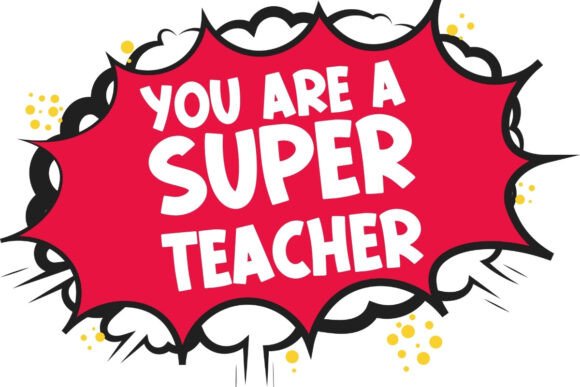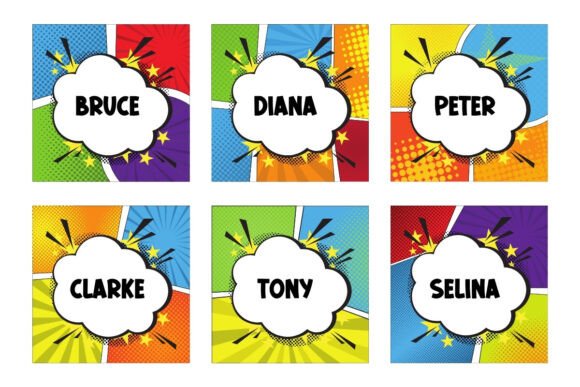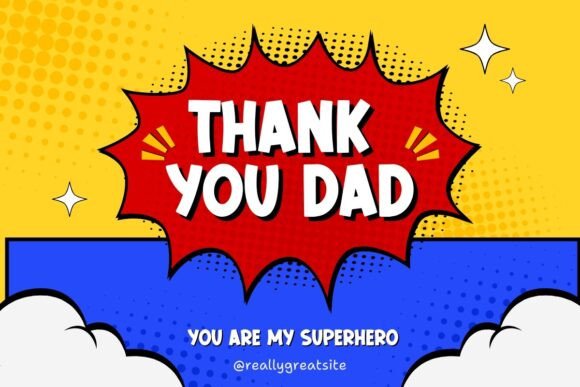
Comic Grinch Font
Comic Grinch is a Beautiful display comic font that exudes fun and friendliness. It will add an incredibly joyful touch to your designs. Add this beautiful display font to each of your creative ideas and notice how it makes them stand out!